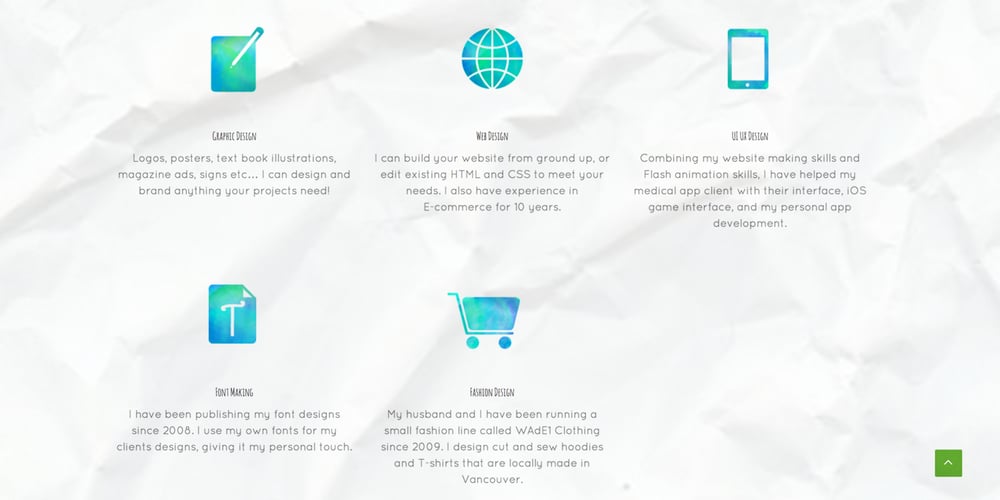
Flaticons Font Family was designed by Natsuko Hayashida and published by Okaycat. Flaticons contains 1 styles and family package options. Okaycat Font Foundry proudly presents “Flaticons”! Flaticons are cool flat icons for your app development or website designs, UI UX purpose graphics, conveniently done in font format. You can type it in Xcode as a font, or you can edit them in your preferred graphic editing software to create the right images. I have used it in my personal website, and my apps to show you how useful it is.